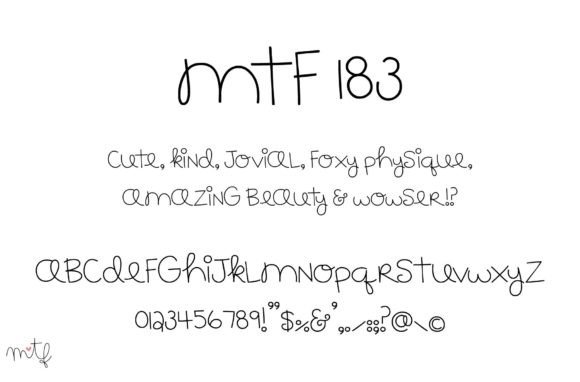
Meet Hundred Eighty-Three Font, the playful and charming script font that will transform your designs into captivating masterpieces. Inspired by the innocence and joy of childhood, this font dances across the page with its cheerful strokes and whimsical curves, bringing a touch of magic to every project.
Crafted by the talented Miss Tiina, Hundred Eighty-Three Font is a work of art that exudes creativity and fun. Its delightful characters are reminiscent of a child's carefree handwriting, evoking a sense of nostalgia and wonder. Whether you're creating children's books, playful invitations, or whimsical social media posts, this font is the perfect choice to add a dash of enchantment.
With its undeniable charm, Hundred Eighty-Three Font has captured the hearts of designers worldwide. Its versatility knows no bounds, making it the ideal choice for a wide range of projects, including branding, packaging, and website design. Its ability to evoke emotions and capture attention makes it a favorite among those seeking to create designs that resonate with audiences of all ages.
So, embark on a journey of creativity with Hundred Eighty-Three Font, and transform your designs into enchanting works of art. Let your imagination soar as you explore the endless possibilities this font offers, and create projects that are sure to capture hearts and leave a lasting impression.